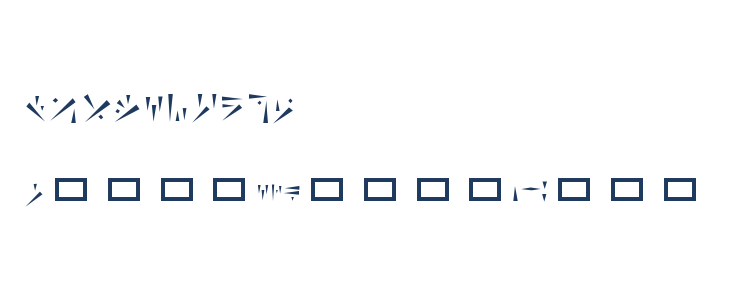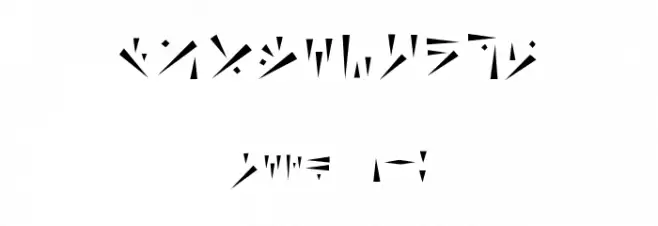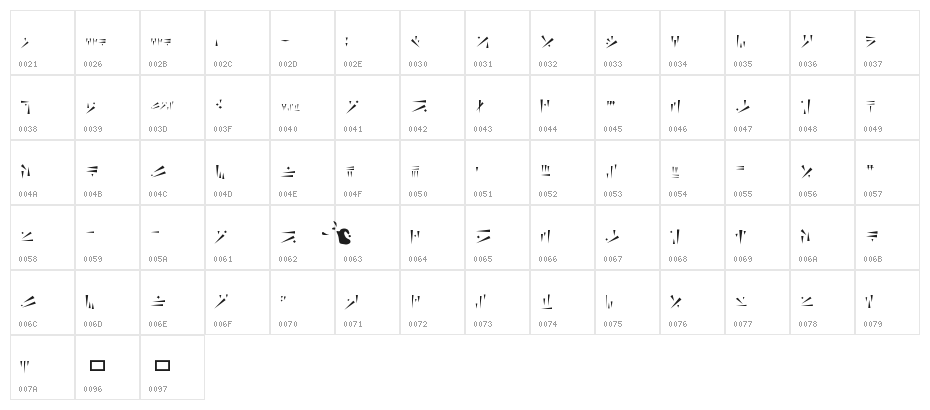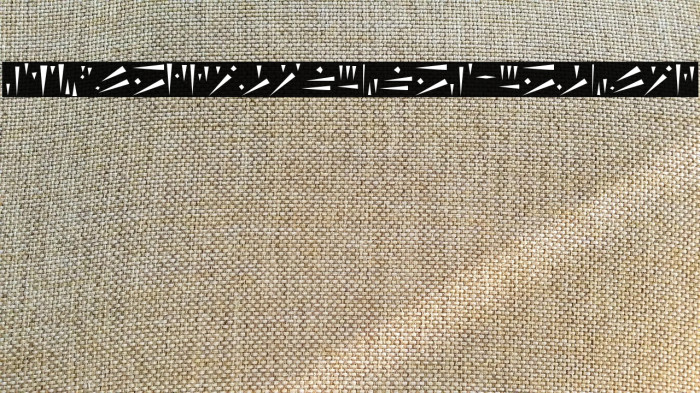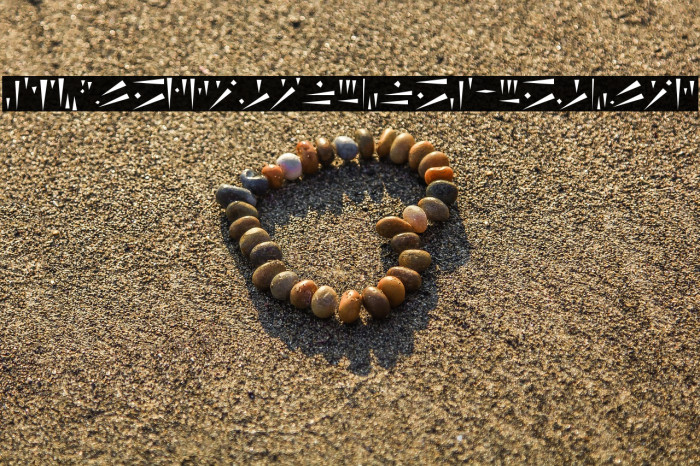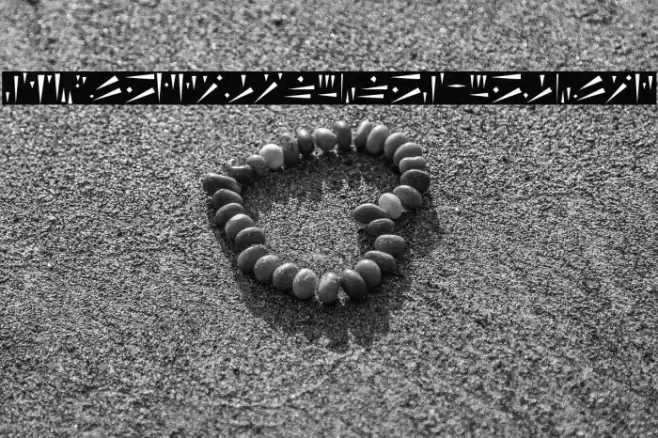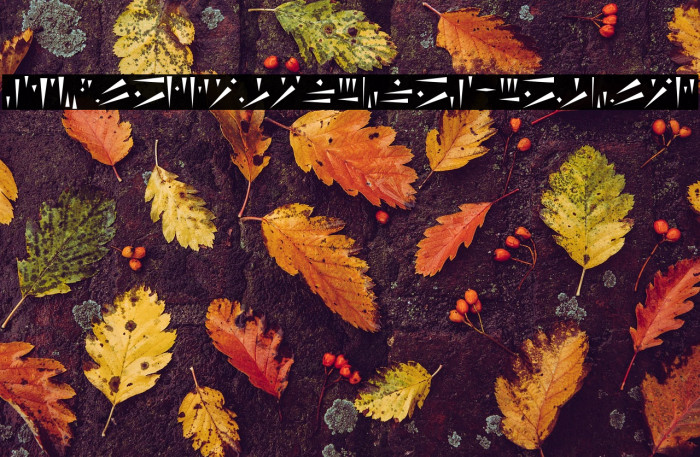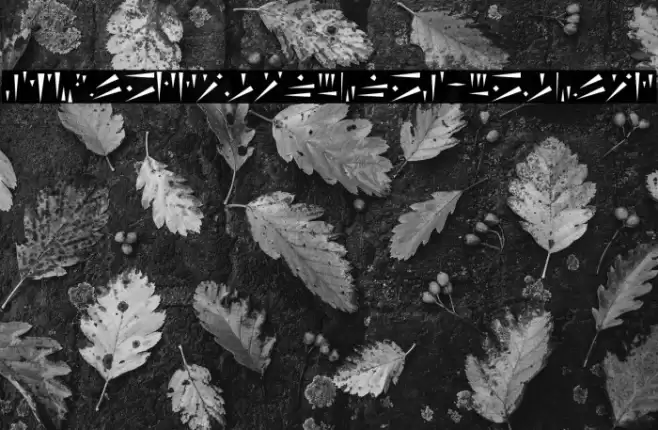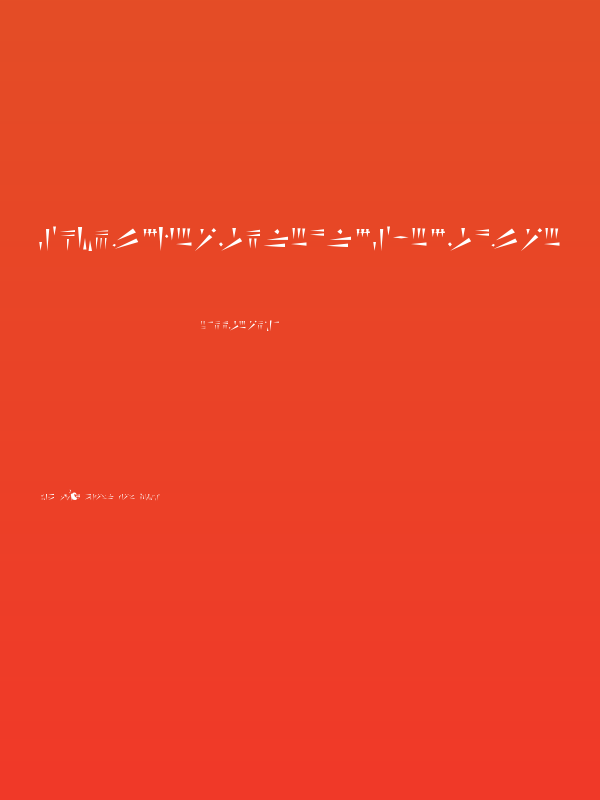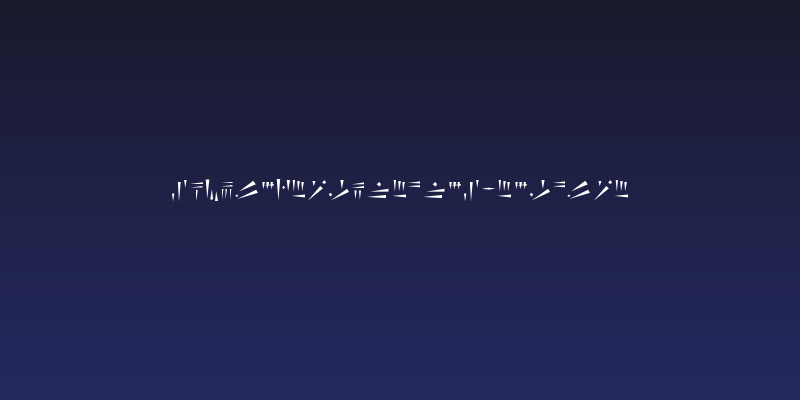
SimpleDragonRunes-Regular Font
SimpleDragonRunes-Regular Description
This font features a unique and mystical design, reminiscent of ancient runes or dragon script. The characters are composed of sharp, angular lines and points, giving it a cryptic and enigmatic appearance. Each letter seems to be crafted with a sense of mystery and fantasy, making it ideal for projects that require an otherworldly or magical touch. The font's distinct style is both decorative and thematic, perfect for creating an immersive atmosphere in fantasy-themed designs.
| Overall Style | Mystical, Fantasy, Enigmatic |
| Use Case | Logos, Titles, Posters |
| Proposed Projects | Ideal for fantasy book covers, game design, mystical event invitations, and themed posters. |